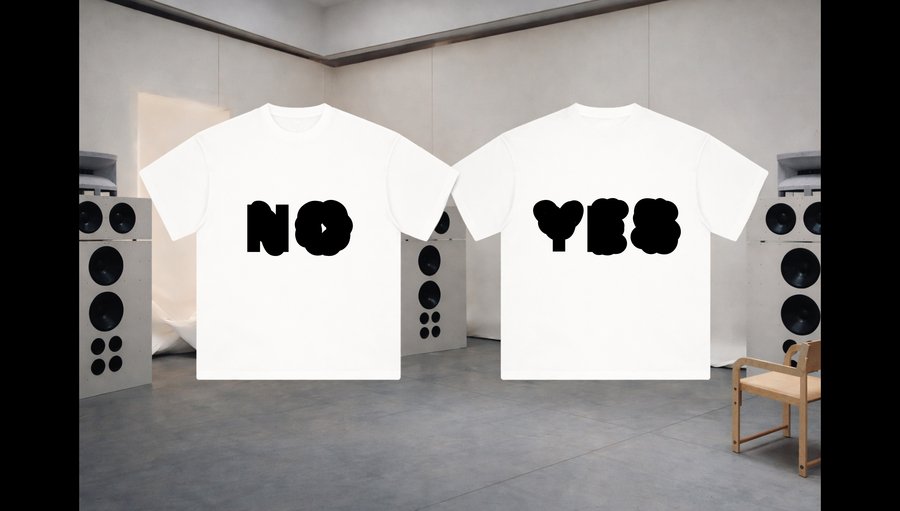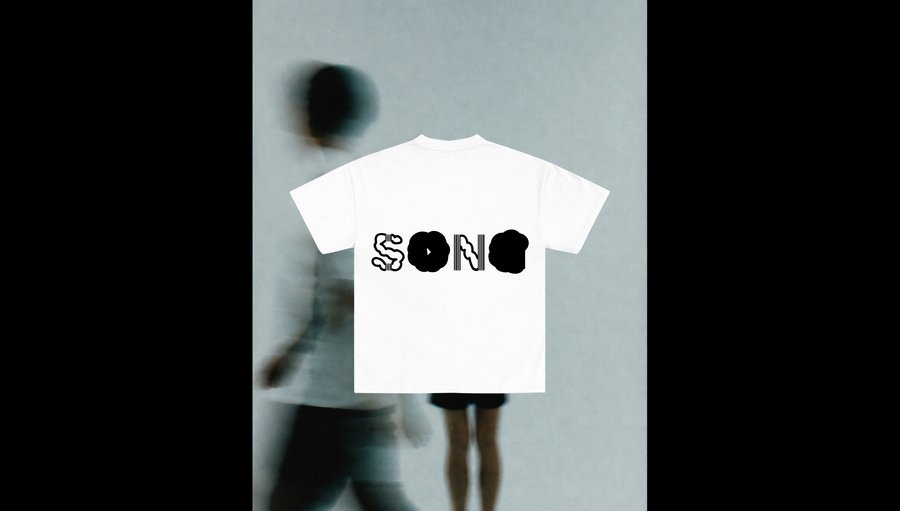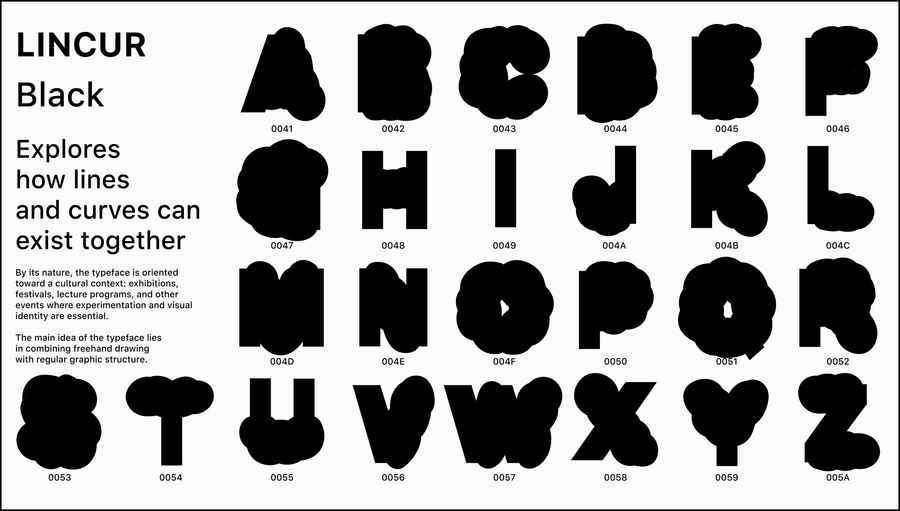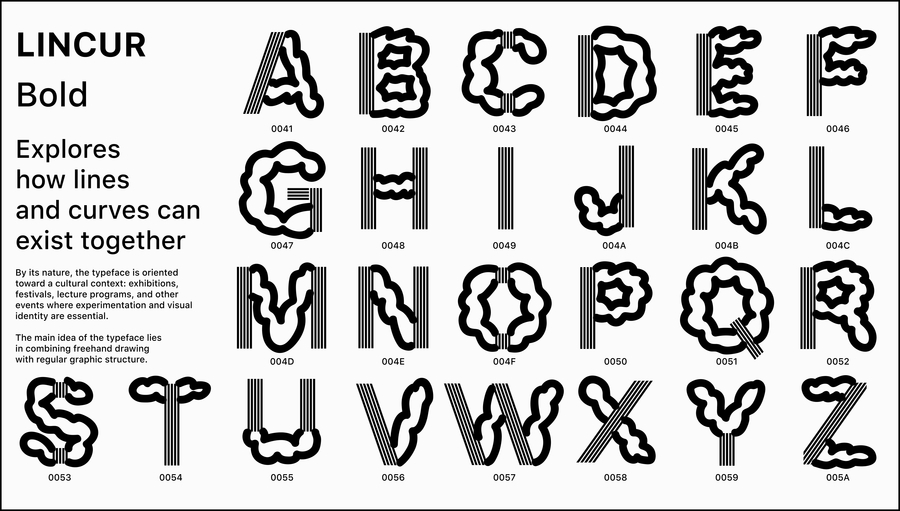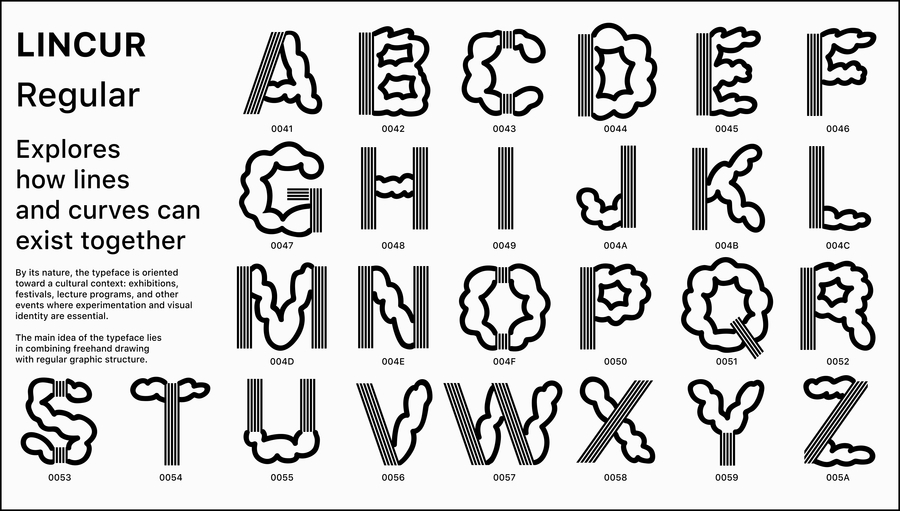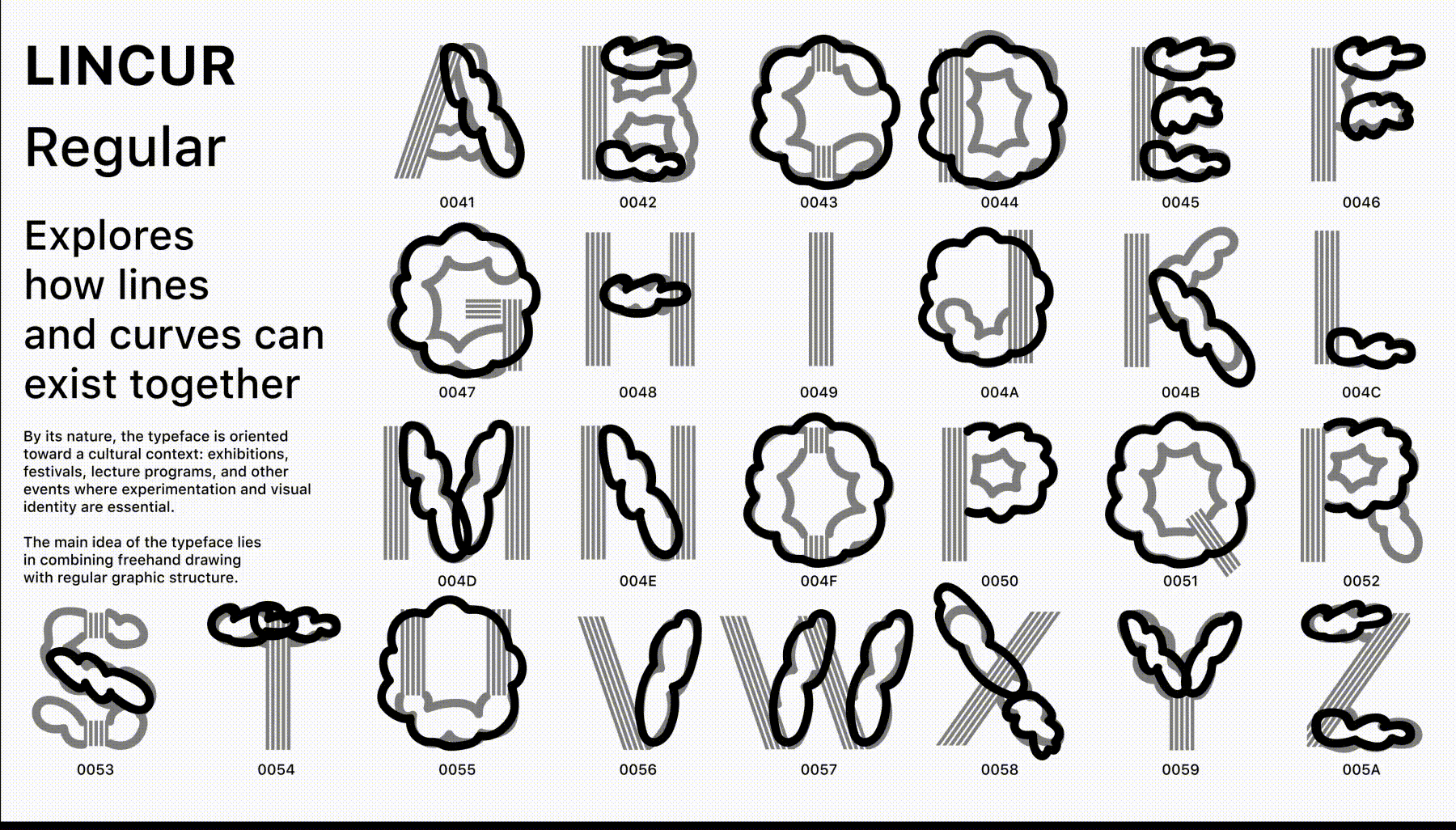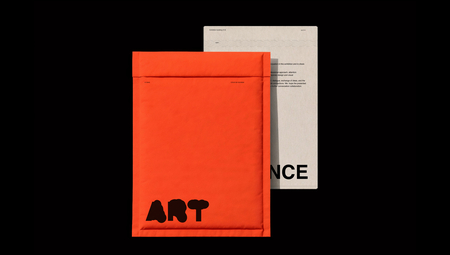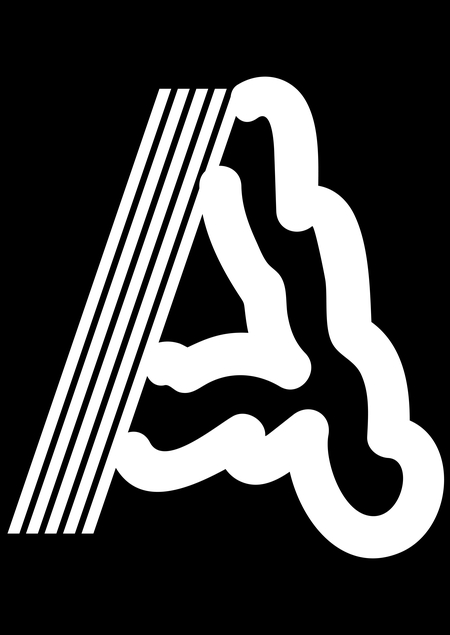
LINCUR font
LINCUR is an experimental display typeface based on the contrast between a strict linear structure and lively, irregular curves. Static lines establish a system into which curves are introduced, creating dynamic interaction within each letter. The typeface explores the boundary between control and spontaneity, system and gesture, science and art, transforming letters into visual objects.